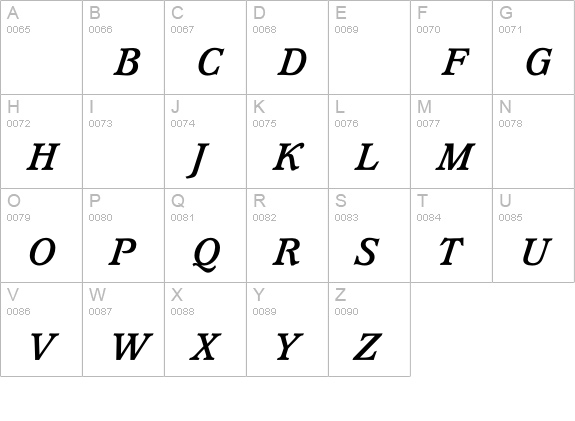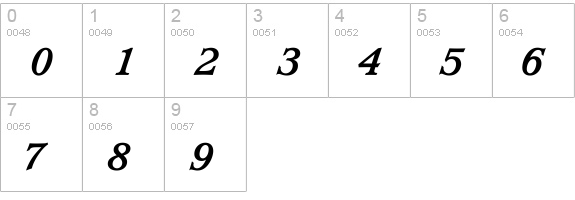
WaverlyBoldItalic Font Details
Introducing WaverlyBoldItalic, a captivating and versatile font that effortlessly combines boldness with elegance. This unique typeface exudes a sense of sophistication and refinement, making it the perfect choice for a wide range of design projects. With its slanted and bold italic style, WaverlyBoldItalic adds a touch of flair and character to any text. Whether you're designing a logo, creating eye-catching headlines, or crafting stylish invitations, this font will instantly elevate your designs to new heights. What sets WaverlyBoldItalic apart is not only its impeccable design, but also its accessibility. This font is freely available for download at FontsMarket.com. Yes, you read that right – you can get your hands on this stunning font without spending a dime. It's the perfect opportunity to add a touch of professional elegance to your projects, without breaking the bank. WaverlyBoldItalic boasts a wide range of features and characters, including uppercase and lowercase letters, numbers, punctuation marks, and special symbols. Its smooth and clean lines ensure legibility, while its artistic curves and unique letter shapes add a touch of creativity. Whether you're a professional designer, a creative enthusiast, or simply someone looking to add a touch of style to their personal projects, WaverlyBoldItalic is the font for you. Download it for free now at FontsMarket.com and let your creativity soar.